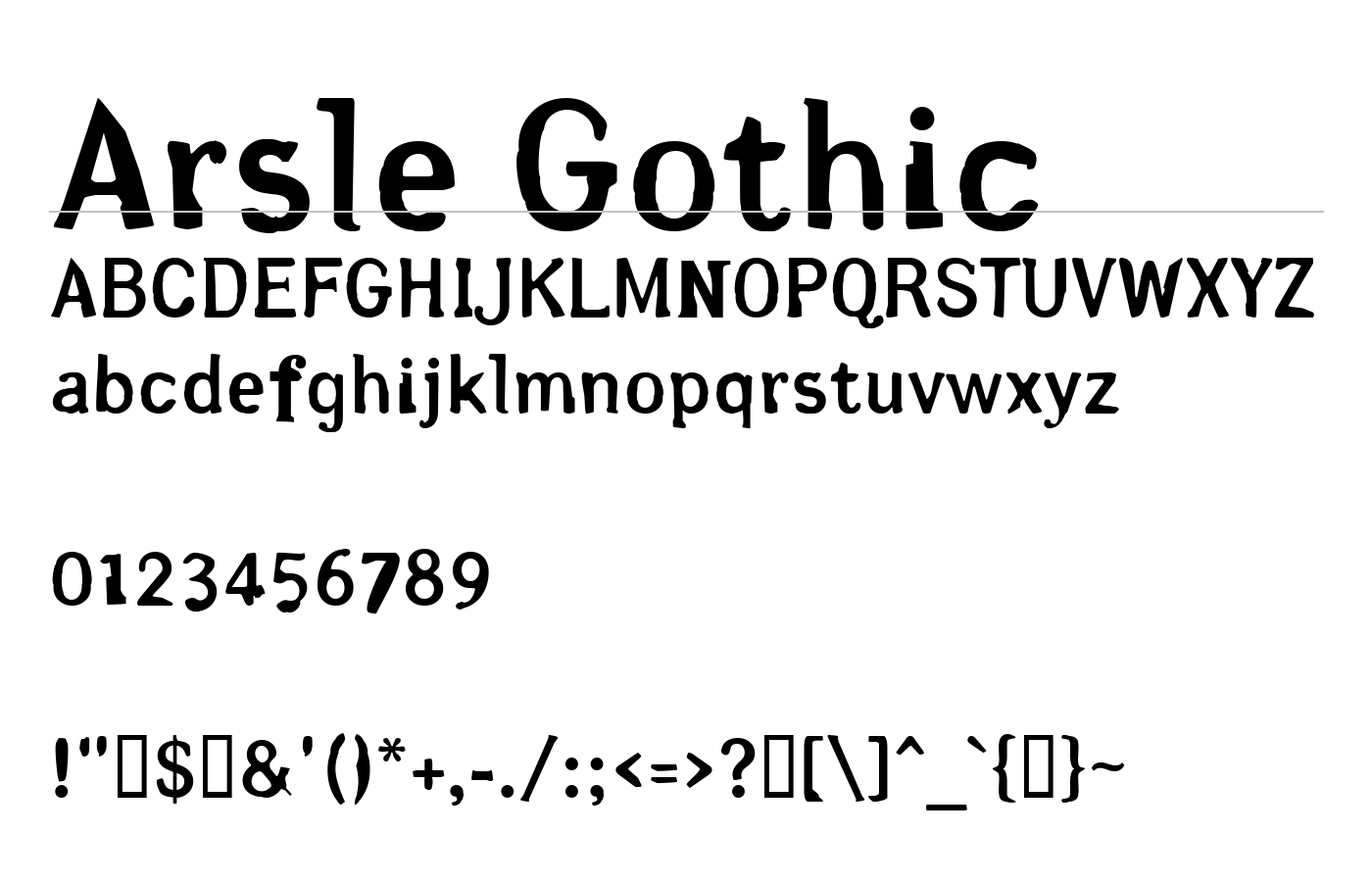
Arsle Gothic is a distinctive serif font with a hand-crafted, slightly irregular style that adds character and warmth. Its medium weight and moderate contrast between strokes make it versatile for both display and body text, while its quirky letterforms give it a playful yet vintage feel. This font is ideal for creative branding, packaging, editorial design, or projects that want to convey a unique, approachable personality with a hint of old-world charm.
Arsle Gothic Font